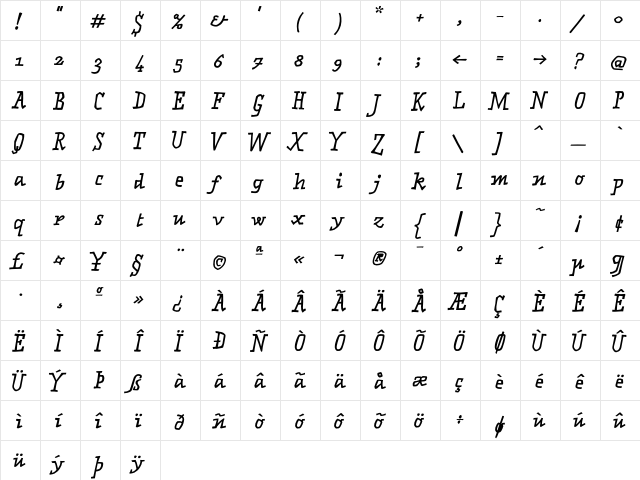
Matto BoldItalic Font Preview
Design Context for Matto Typeface
Matto takes a measured approach to typography — its balanced proportions and neutral character make it a reliable workhorse for both digital and print work. The dynamic lean of this cut emphasises speed and emphasis in any layout. The heavy weight commands attention and anchors typographic hierarchies.
Pro Tip: Try Matto for annotation and caption copy alongside an upright companion — the contrast in angle creates a dynamic but ordered typographic system.